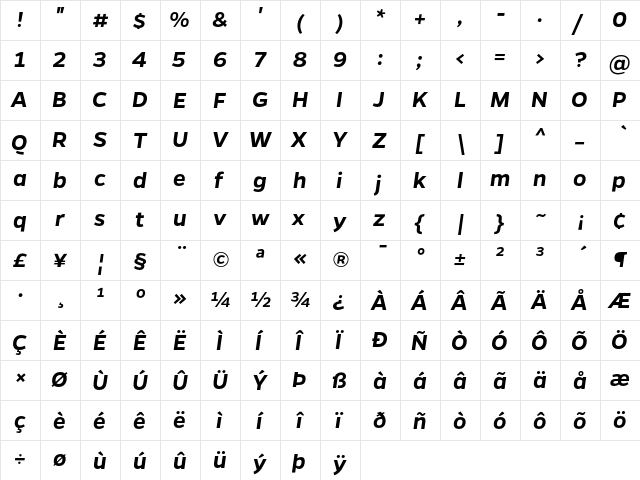
Gentona SemiBold Italic Regular
Design Context for Gentona SemiBold Italic Typeface
Gentona SemiBold Italic is a composed and adaptable typeface that performs quietly and consistently across a wide range of design contexts. Its italic angle brings a sense of urgency and motion to the letterforms. The heavy weight commands attention and anchors typographic hierarchies.
Pro Tip: Try Gentona SemiBold Italic for annotation and caption copy alongside an upright companion — the contrast in angle creates a dynamic but ordered typographic system.